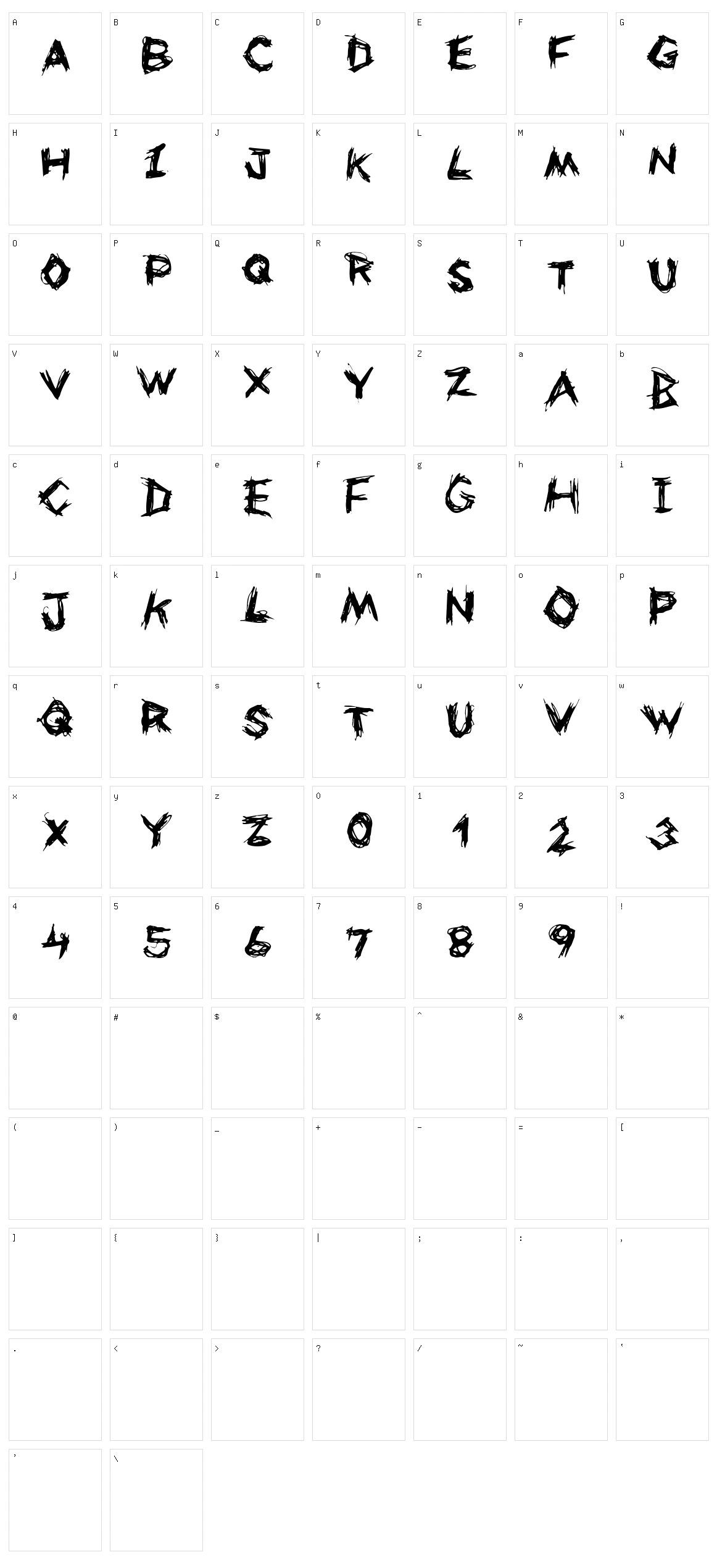
UNEASY
An unsettled font for an unsettled week, I suppose. I drew Uneasy a couple of weeks ago, in a much better state of mind . . . but it seems an appropriate selection, and it looks like I feel, when I let myself think about what's been happening. It's a letters-and-numbers only set; no punctuation. The lowercase and uppercase are two different sets, to allow variation when duplicate letters are in close proximity (see graphic above). Here's hoping it finds you well and safe.